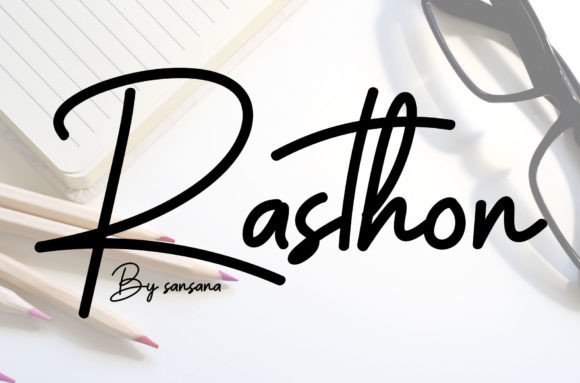
About Rasthon Font
Rasthon is a modern, elegant calligraphy font. With its beautiful rhythm, this font will help you create beautiful and classy compositions. Use it for branding projects, product logos, invitations, web graphics, cards, and more!